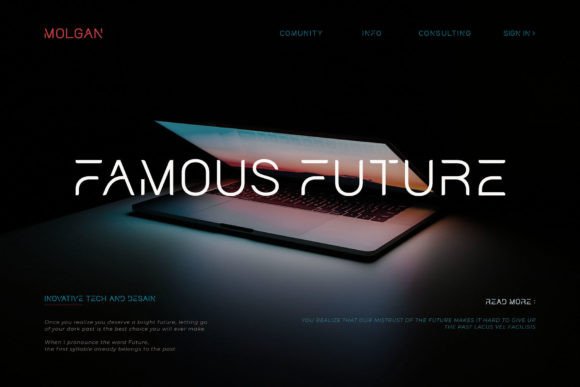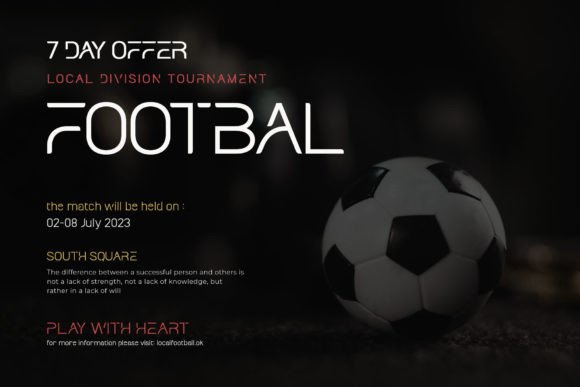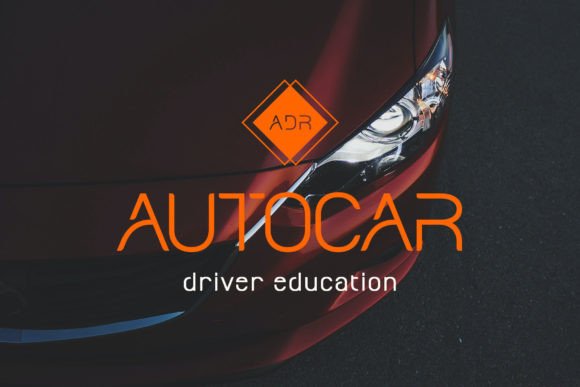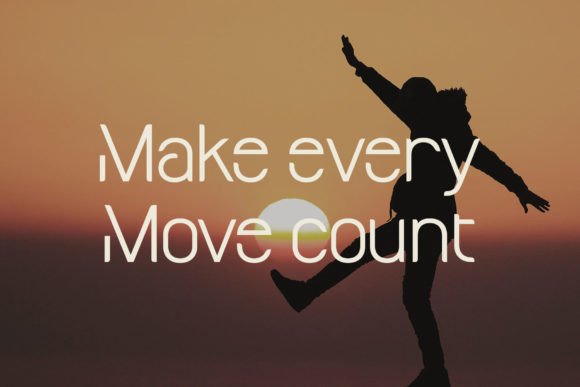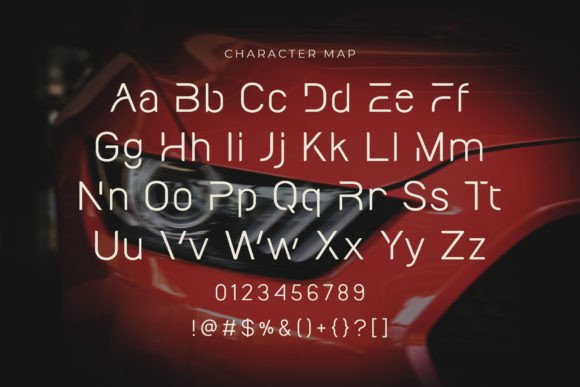
Introduction to Molgan Font
Molgan is a futuristic and modern sans serif font, best used as a display for headings, logos, branding, magazines, product packaging, and invitations.
Molgan comes with clean lines and smooth curves giving any project an extra touch of class .
Key Features of Molgan Font